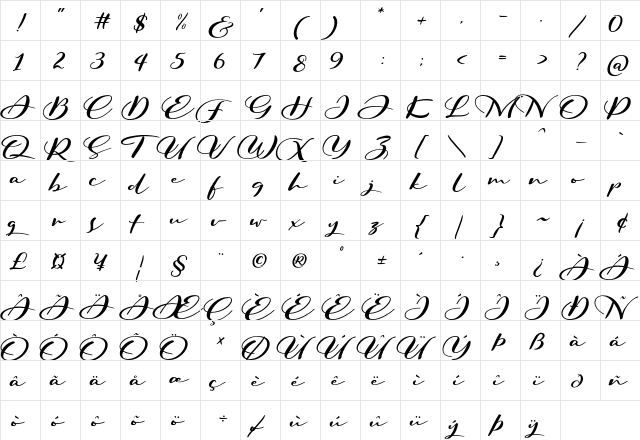
Dublo Regular
Design Context for Dublo Typeface
Dublo is a composed and adaptable typeface that performs quietly and consistently across a wide range of design contexts.